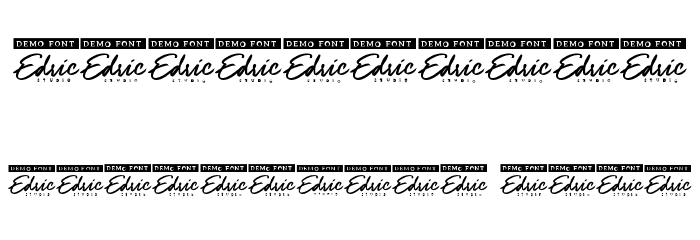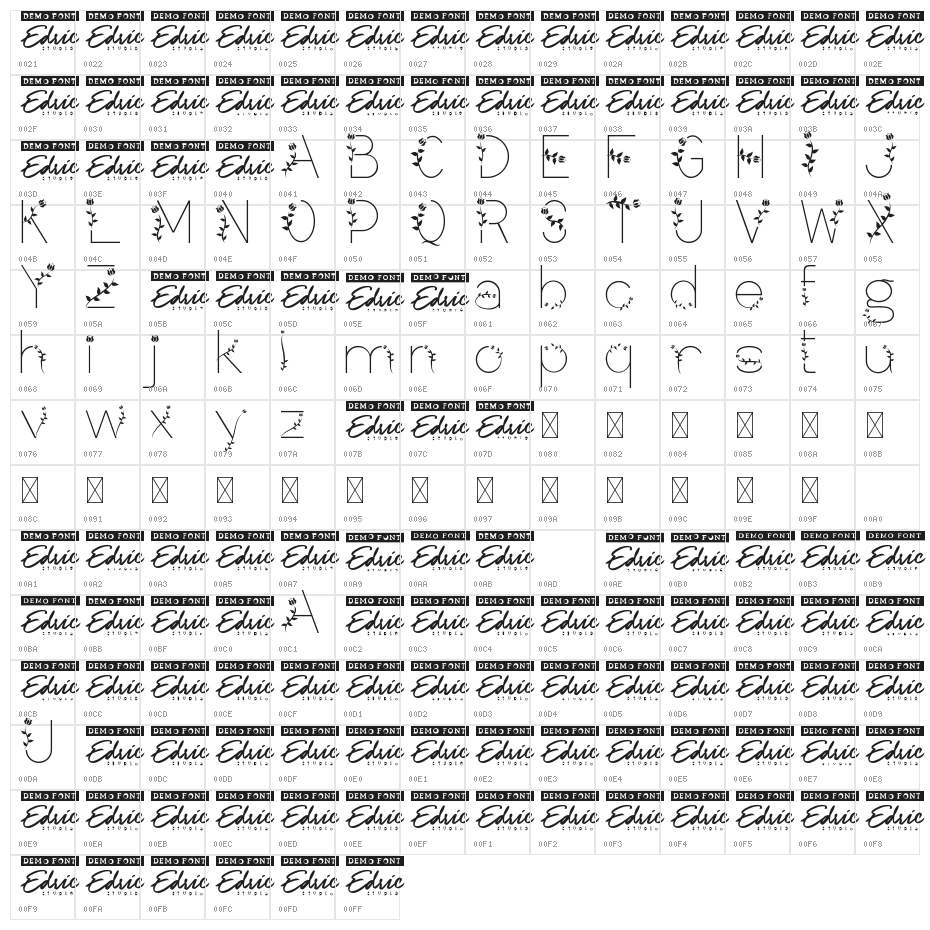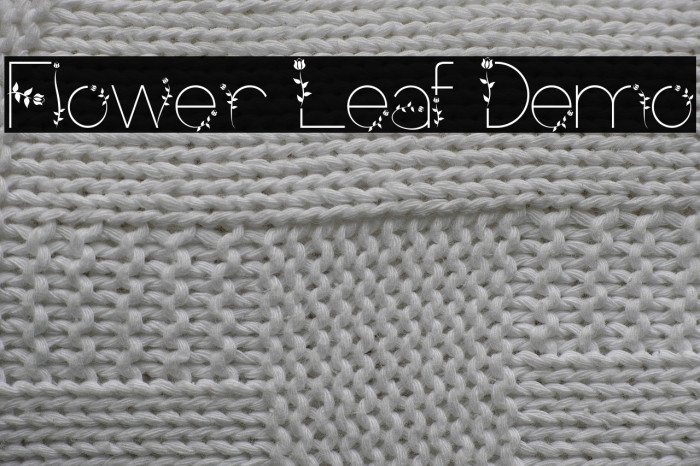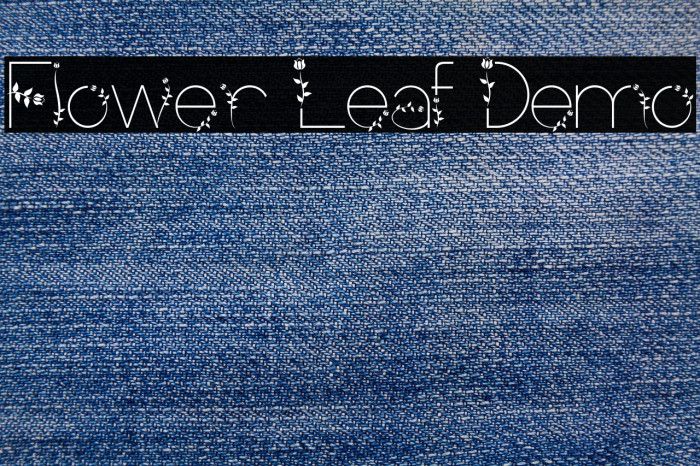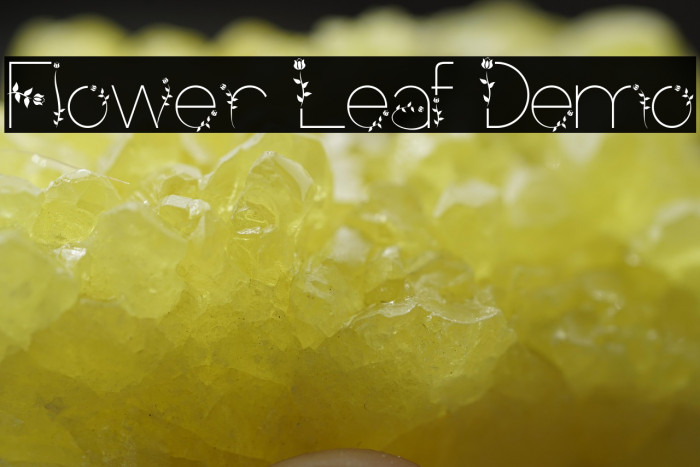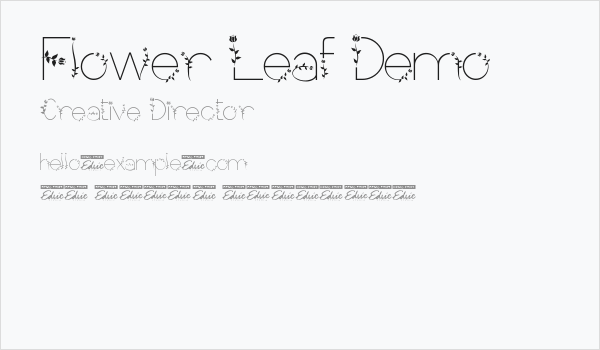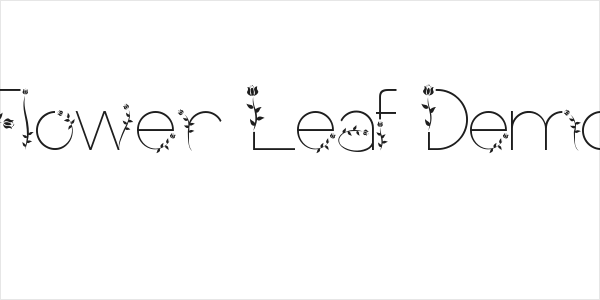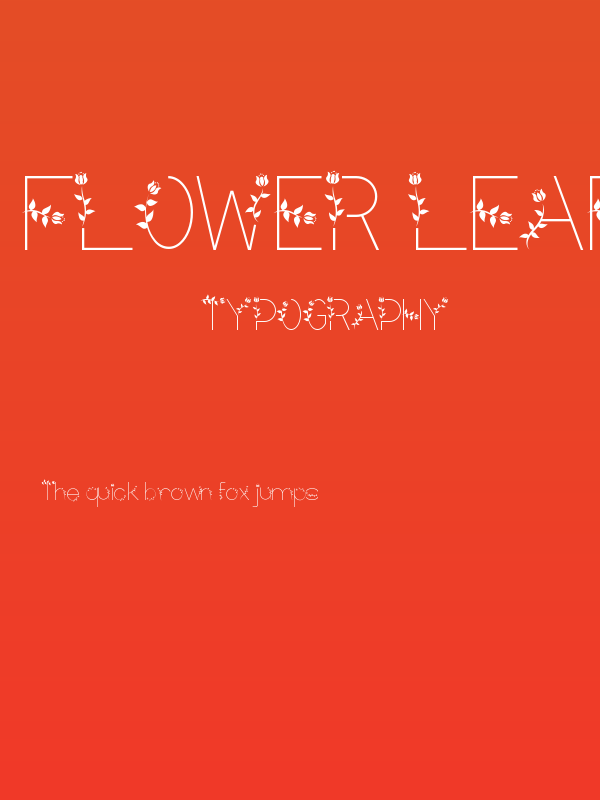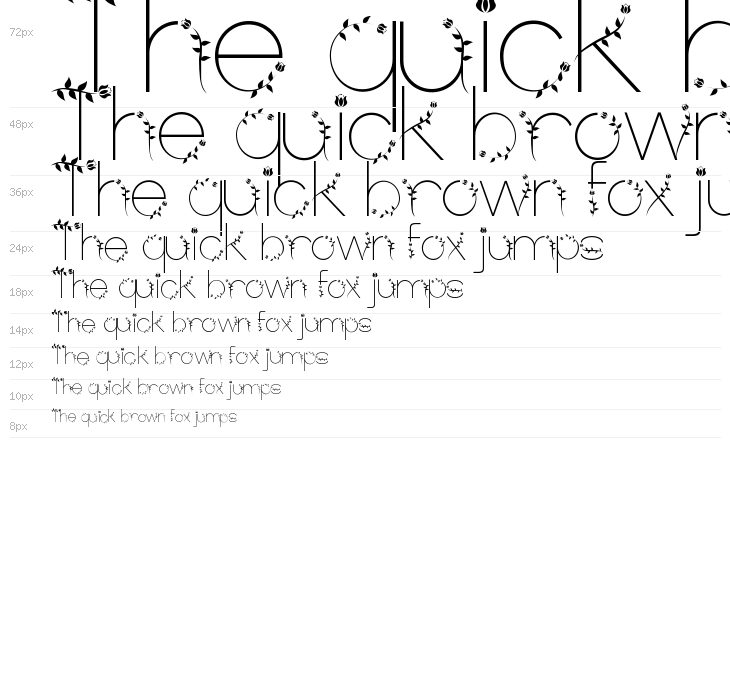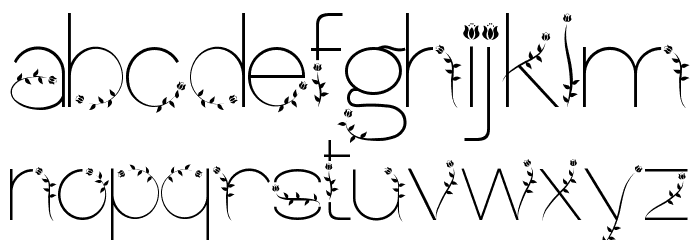
Flower Leaf Demo Font
Flower Leaf Demo Description
This decorative font features a unique design where each letter is adorned with intricate floral and leaf motifs. The uppercase and lowercase letters are crafted with thin, elegant lines, giving the font a delicate and artistic appearance. The floral elements are integrated seamlessly into the structure of each character, creating a cohesive and visually appealing style. This font is perfect for projects that require a touch of nature and elegance, such as wedding invitations, greeting cards, or branding for eco-friendly products. The overall aesthetic is both modern and whimsical, making it suitable for a variety of creative applications.
| Proposed Projects | Ideal for wedding invitations, eco-friendly branding, greeting cards, and artistic projects. |